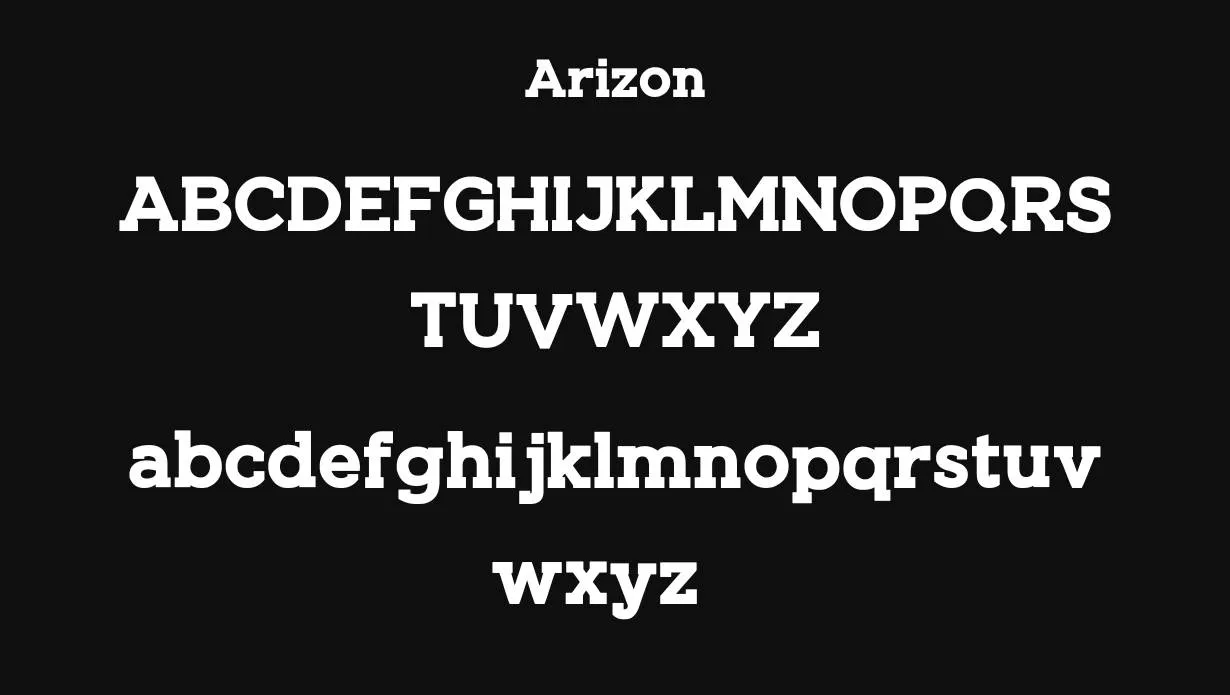
Arizon Font is a basic Serif font created by a famous font designer team of BearType. This font has beautiful decorative ends with a bold texture which looks amazing in any design project.
This font can be used for multiple design purposes where you need boldness and elegance. This font can be used for advertisements and brandings of different products as well as services such as posters, brand flyers, brochures, banners, billboards, product packaging, and labeling.
You can also write invitation cards, wedding cards, birthday cards, party invitation cards, menu cards, business cards, and business stationery. You can use this font to write headlines as well as body texts in your textbooks, newspapers, magazine covers, storybooks, and comic books. This font goes well with making logs and movie titles also.
Arizon Font Family Appearance
| Name | Arizon Font |
| Designer | BearType |
| Style | Serif |
Family of Arizon Font
- Arizon Regular
Is Arizon a good font?
Yes, this font is a perfect font for your designs. It has an amazing bold texture which is available in beautiful glyphs.
Is Arizon typeface easy to read?
Yes, this font is very easy to read and understand. You can use it in any kind of design project like posters, resumes, and invitation cards.